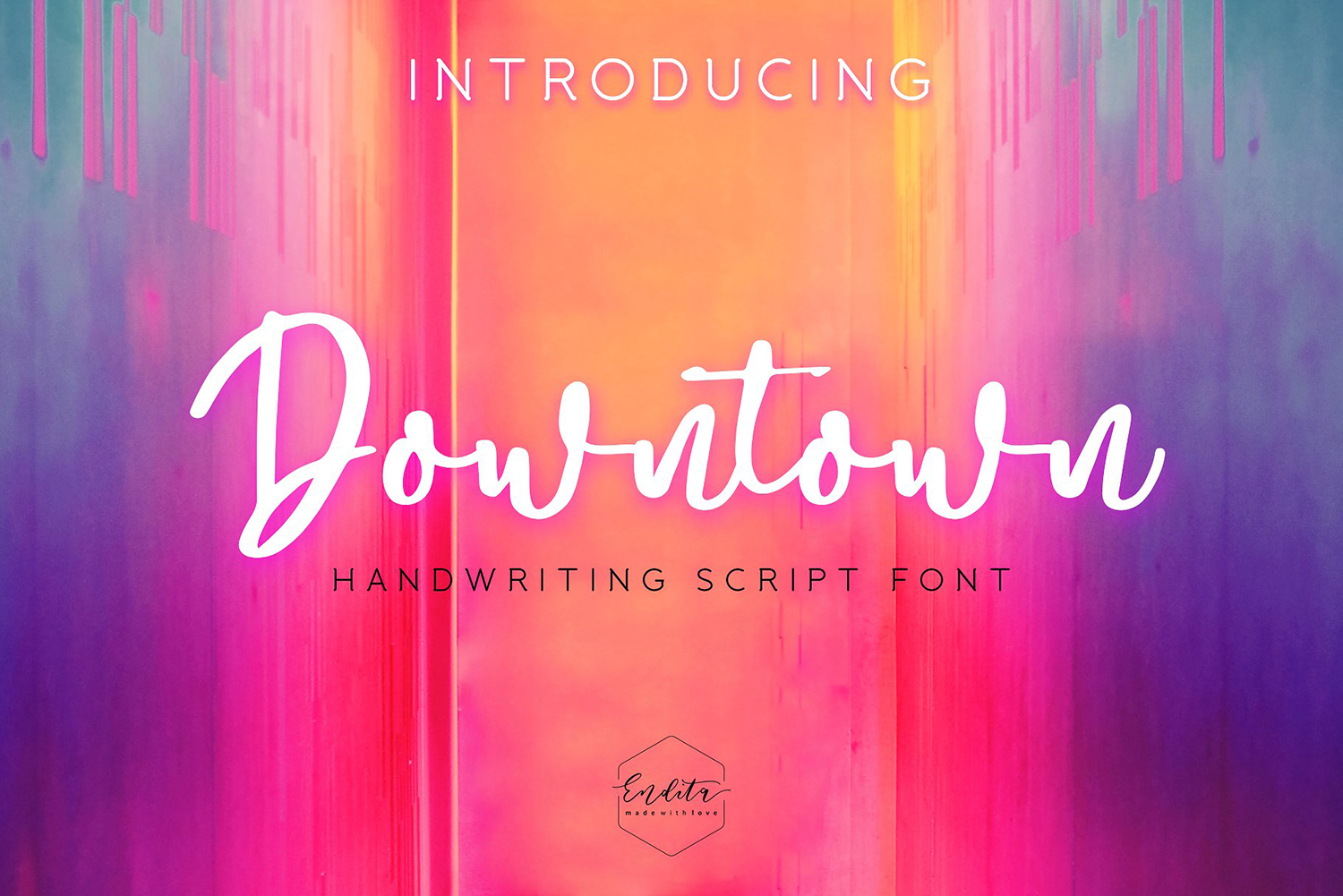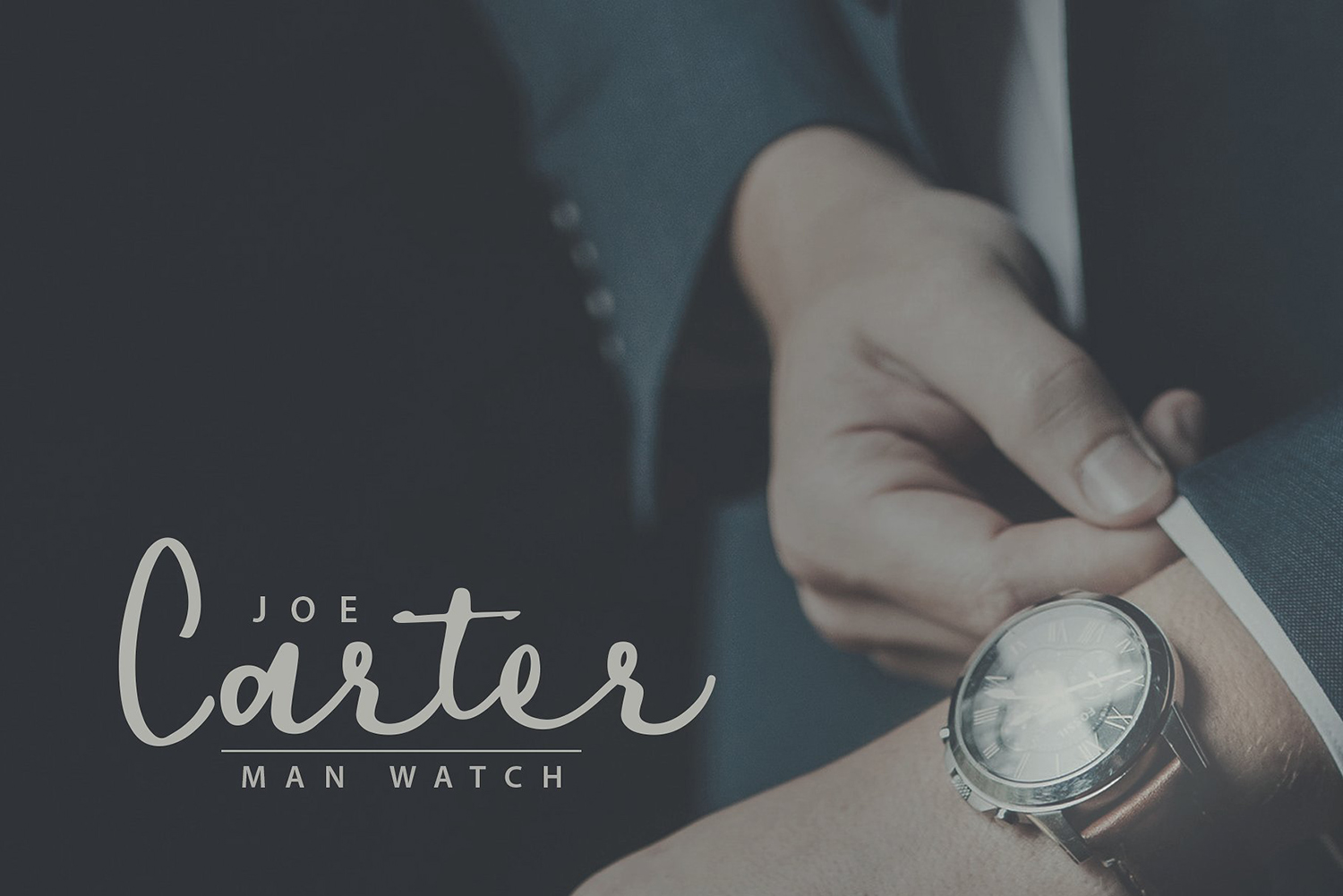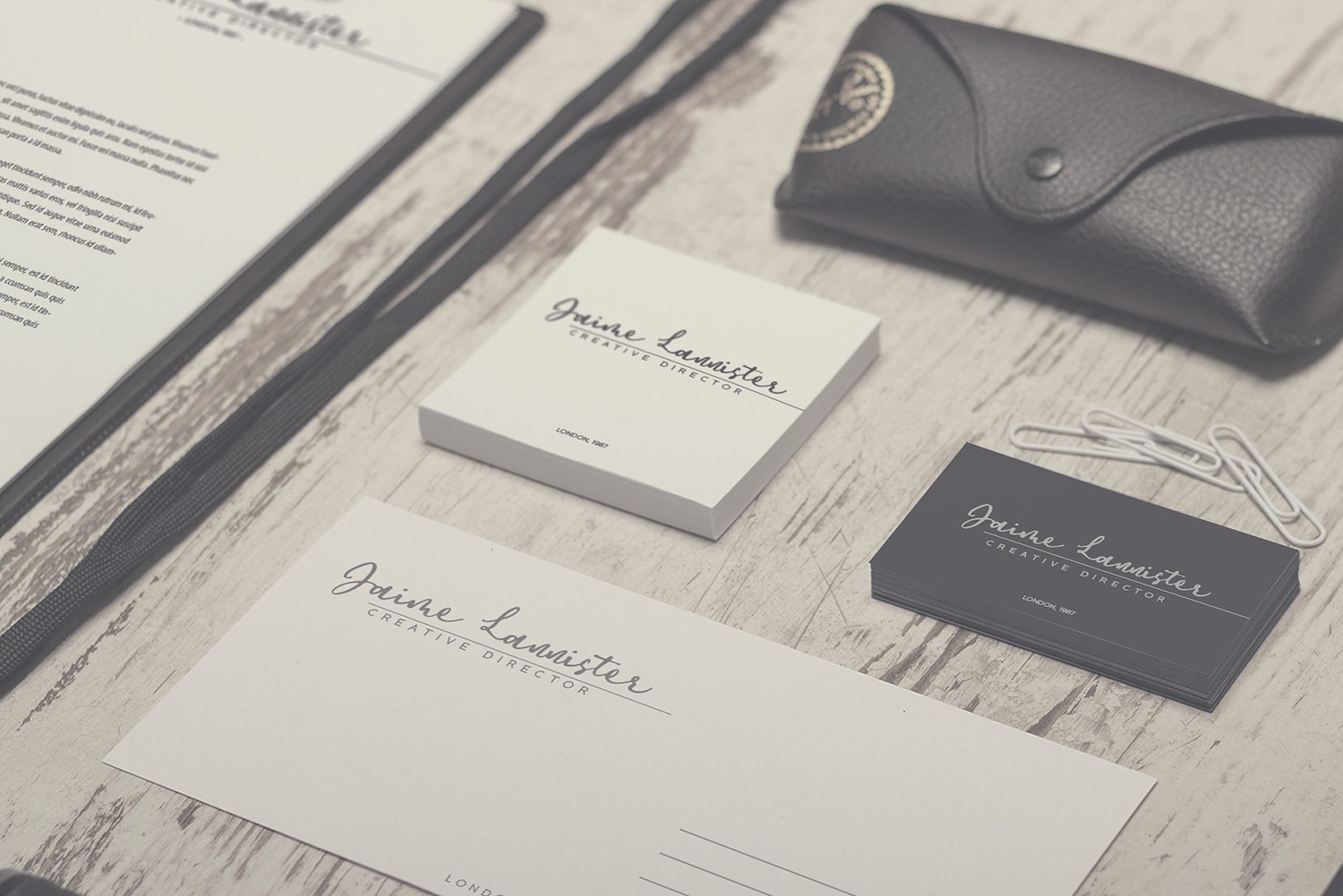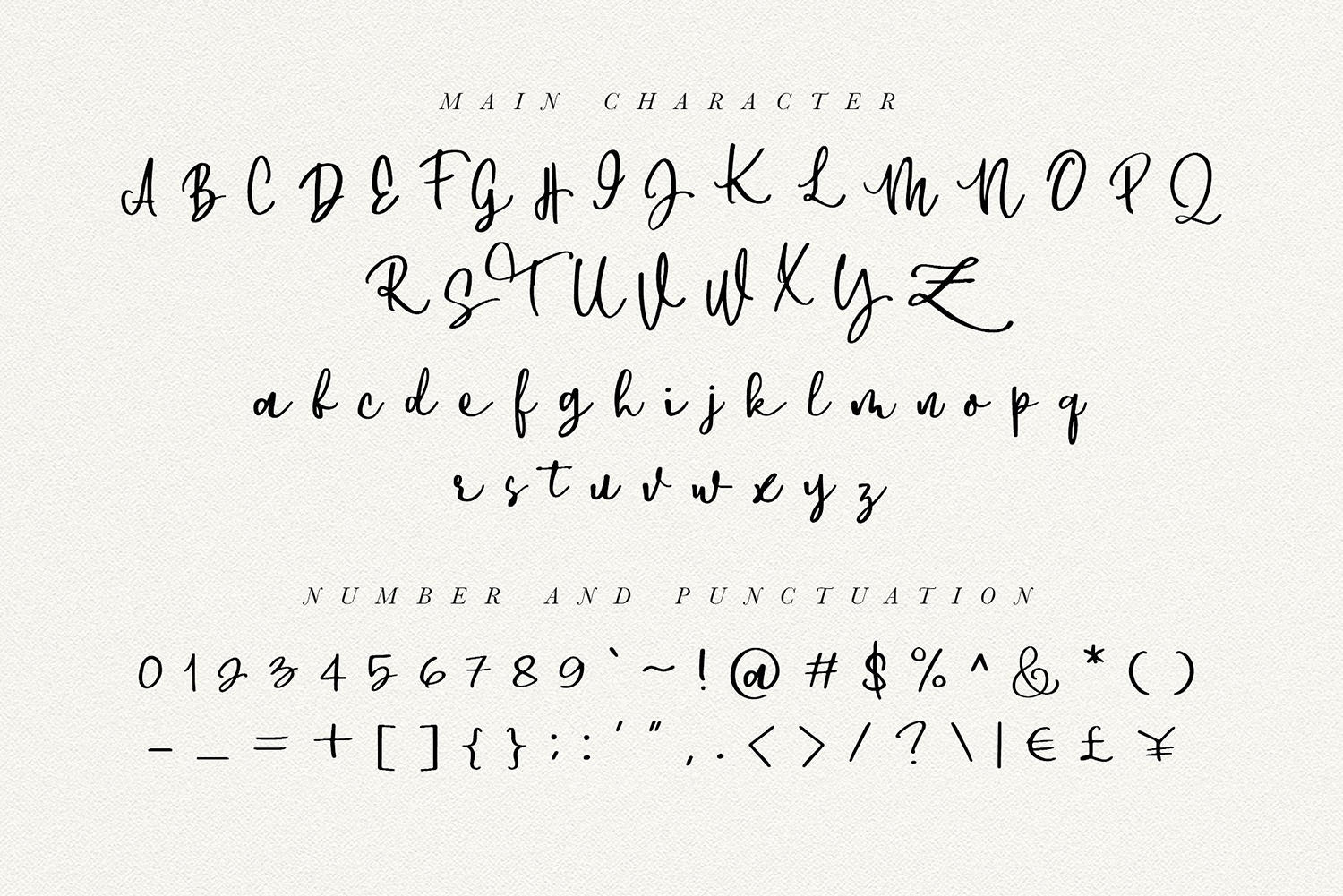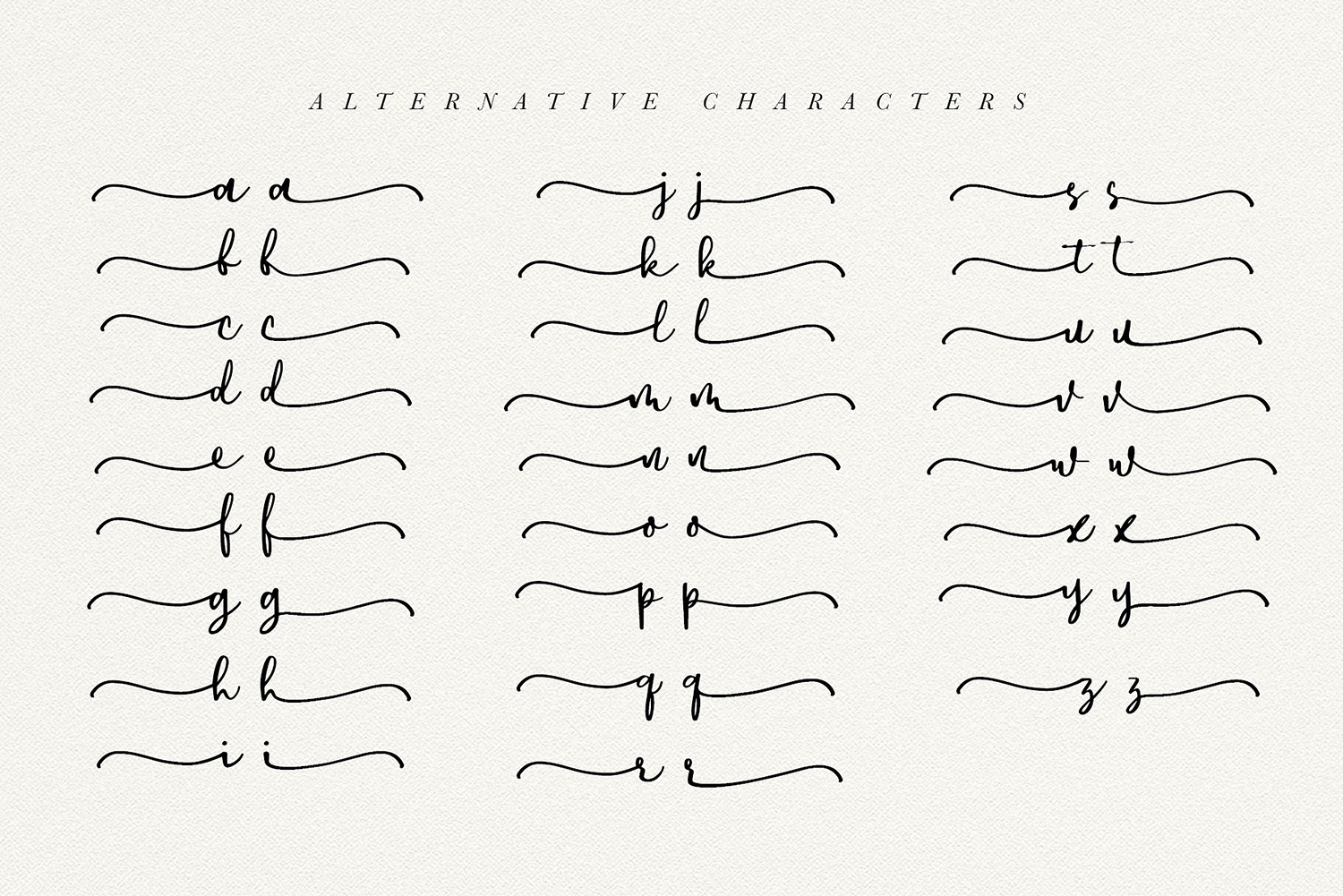
Downtown Free Font
Downtown Free Font is naturally made from my hand-lettered calligraphy. It’s perfectly suited for your beautiful logo branding, cards and invitations, book cover, and all about cute stuffs. This free typeface was designed by talented Telllu. If you like it don’t forget to check out the full version.